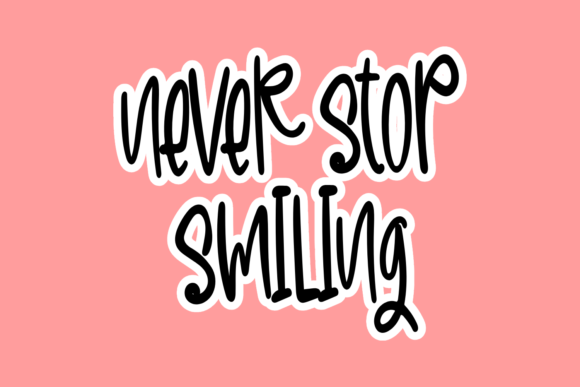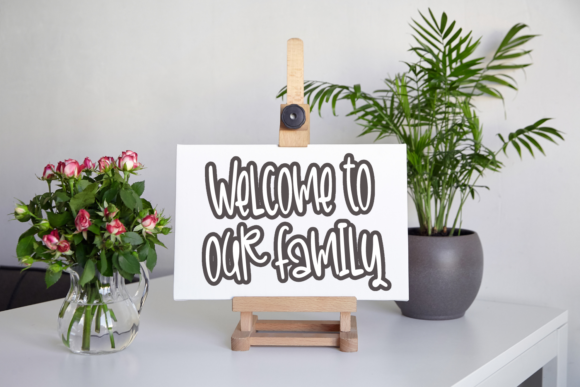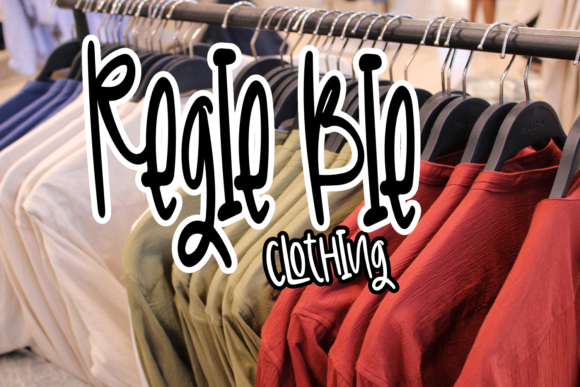
Introduction to Rayya and Ayla Font
Rayya And Ayla is a unique handwritten font.
A little bit quirky, this font looks incredibly adept on a wide variety of contexts .
Key Features of Rayya and Ayla Font
Why Choose Rayya and Ayla Font?
Rayya and Ayla Font offers exceptional quality and versatility, making it a valuable addition to your design toolkit. Whether you’re creating for personal projects or commercial use, Rayya and Ayla Font delivers professional results.